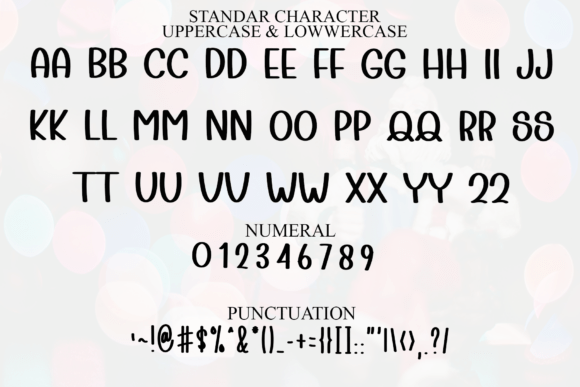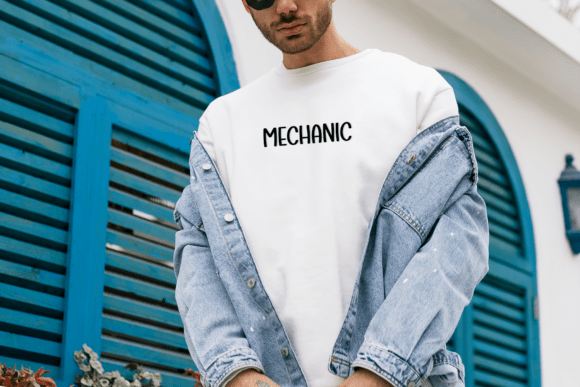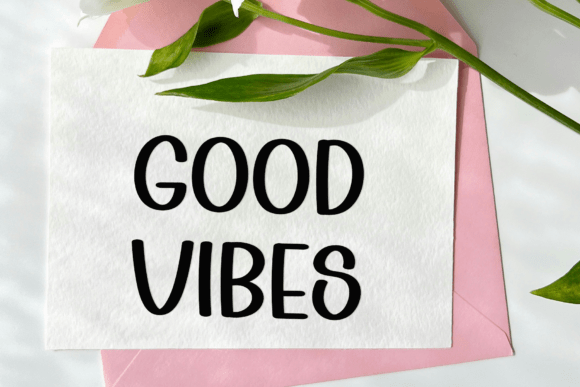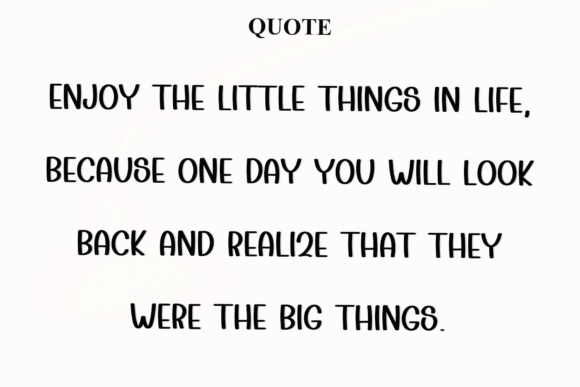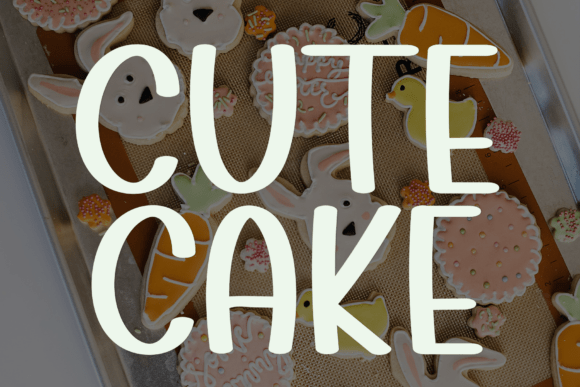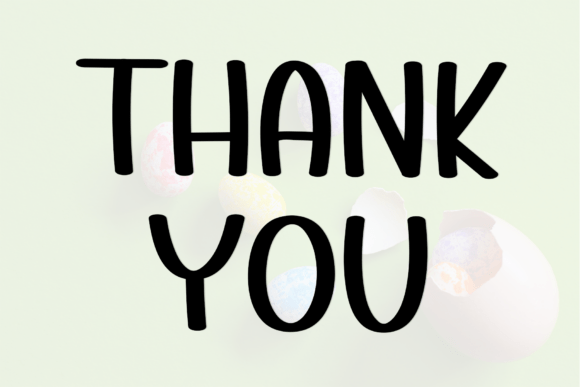
EasterPlanner Font: The Perfect Addition to Your Design Arsenal
Are you a designer or crafter looking for a font that can add a touch of warmth and friendliness to your projects? Look no further than the EasterPlanner font. This casual and creative font is perfect for personal projects, invitations, and social media graphics, and its unique, hand-drawn aesthetic is sure to make your designs stand out.
The Characteristics of EasterPlanner Font
EasterPlanner font is characterized by its round, playful strokes that create a relaxed and approachable feel. The font’s charming, hand-drawn aesthetic adds a fun and unique touch to any design, making it perfect for designers and crafters who want to add a personal touch to their work. Whether you’re creating a birthday invitation, a social media graphic, or a personal blog post, EasterPlanner font is the perfect choice.
What Makes EasterPlanner Font Special?
Perfect for Personal Projects
EasterPlanner font is perfect for personal projects, such as creating custom invitations, greeting cards, and social media graphics. The font’s casual and creative vibe makes it ideal for designers and crafters who want to add a personal touch to their work. Whether you’re creating a design for a special occasion or just want to add some personality to your everyday designs, EasterPlanner font is the perfect choice.
Key Features of EasterPlanner Font
- Round, playful strokes create a relaxed and approachable feel
- Charming, hand-drawn aesthetic adds a fun and unique touch to any design
- Perfect for personal projects, invitations, and social media graphics
Tips for Using EasterPlanner Font
Here are a few tips for using EasterPlanner font in your designs:
- Use EasterPlanner font to add a personal touch to your designs
- Pair EasterPlanner font with other fonts to create a unique and eye-catching design
- Use EasterPlanner font to create custom invitations, greeting cards, and social media graphics
In conclusion, EasterPlanner font is a casual and creative font that is perfect for designers and crafters who want to add a touch of warmth and friendliness to their projects. Its unique, hand-drawn aesthetic and standard PUA Encoded glyphs make it a versatile addition to any design arsenal. Whether you’re creating a personal project, invitation, or social media graphic, EasterPlanner font is the perfect choice.